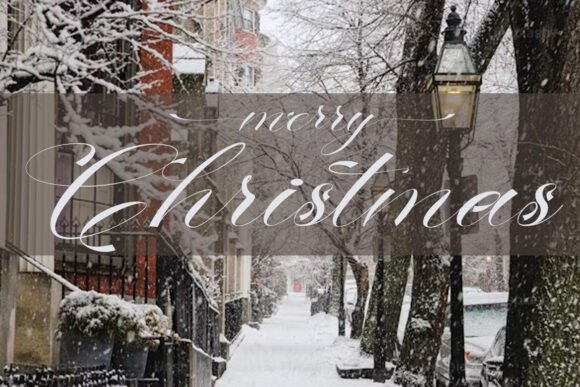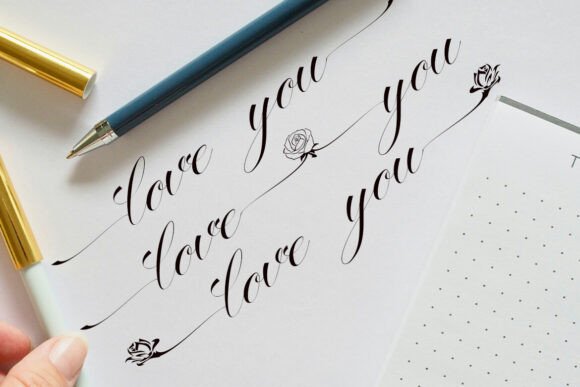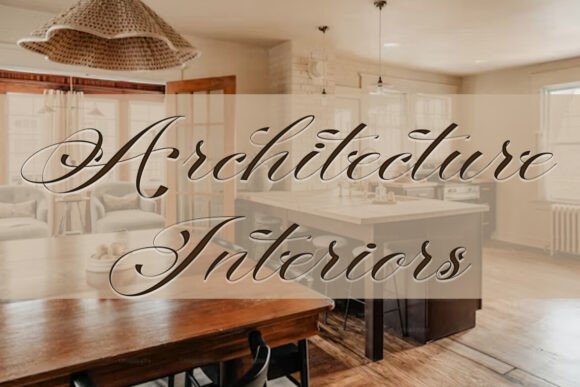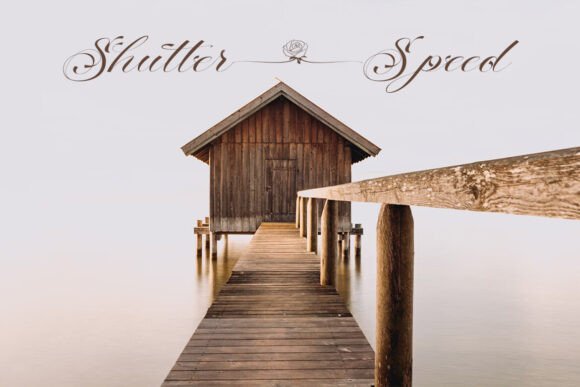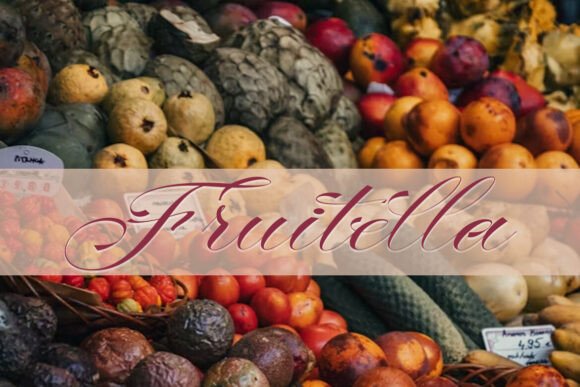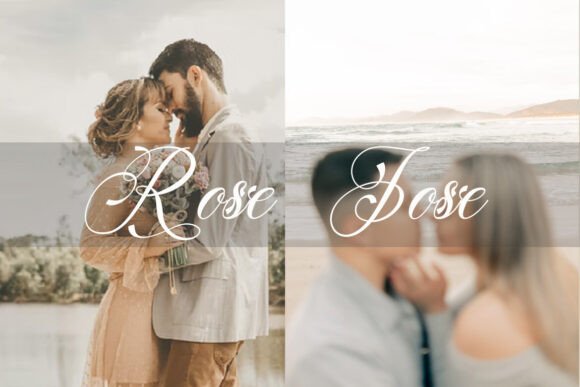
Discover the Elegance of Beautifully Font: Elevate Your Designs with a Sleek Script Font
In the world of typography, a font can make or break a design. For designers and crafters looking to add a touch of elegance and sophistication to their projects, Beautifully Font is a game-changer. This sleek, modern, and graceful script font is designed to capture the hearts of those who appreciate beautiful typography. With its ravishing style and versatility, Beautifully Font is the perfect choice for creating stunning designs that leave a lasting impression.
The Beauty of Beautifully Font
Beautifully Font is more than just a font – it’s an experience. Its sleek and modern design makes it perfect for a wide range of projects, from wedding invitations and stationery to social media posts and more. The font’s graceful curves and flowing lines give it a sense of elegance and sophistication, making it ideal for designers and crafters who want to add a touch of luxury to their work.
One of the standout features of Beautifully Font is its balance and harmony. The font is carefully crafted to be well-balanced, making it easy to read and visually appealing. This balance also allows Beautifully Font to match a wide pool of designs, making it a versatile choice for any project.
The possibilities are endless with Beautifully Font. Here are just a few ideas to get you started:
- Wedding Invitations: Create stunning wedding invitations that set the tone for a beautiful and elegant wedding.
- Stationery: Design gorgeous stationery, including letterheads, business cards, and more.
- Social Media Posts: Elevate your social media posts with Beautifully Font’s elegant and sophisticated style.
- Branding: Use Beautifully Font to create a cohesive brand identity that exudes luxury and sophistication.
Beautifully Font is PUA (Private Use Area) encoded, which means you can access all the glyphs and sweeps easily. This encoding allows you to unlock the full potential of the font, giving you creative freedom to experiment with different designs and styles.
Why Choose Beautifully Font?
So, why choose Beautifully Font over other script fonts? Here are just a few reasons:
- Unique Style: Beautifully Font has a unique and distinctive style that sets it apart from other script fonts.
- Versatility: The font’s balance and harmony make it versatile and easy to use in a wide range of projects.
- Ease of Use: With PUA encoding, accessing glyphs and sweeps is easy, making it simple to get creative with your designs.
Beautifully Font is a game-changer for designers and crafters looking to add a touch of elegance and sophistication to their projects. With its sleek, modern, and graceful design, this font is perfect for creating stunning designs that leave a lasting impression. Whether you’re designing wedding invitations, stationery, social media posts, or more, Beautifully Font is the perfect choice. So why wait? Fall in love with Beautifully Font and elevate your designs to new heights.